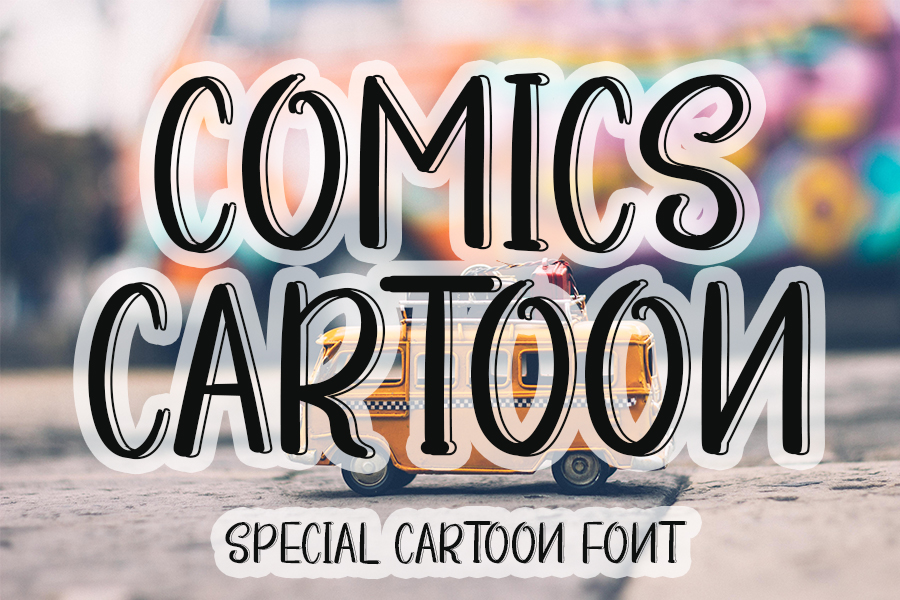
Comics Cartoon is a magical display font carefully created with a touch of elegance. A little bit quirky, this font is the perfect fit for all of your logos, branding, social media, and crafty DIY projects.